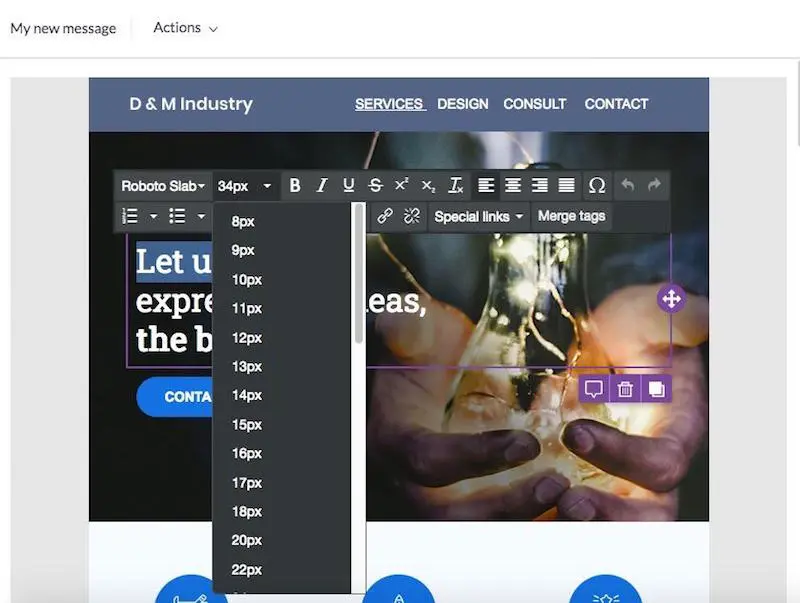
Best Font Size For Mailing Labels . Choosing the right font for labels? Our designers put together three sample font pdfs to help you see what a popular label font looks. Learn how to choose the best font for your product labels. It’s best to avoid using any cursive, serif, or italic fonts for name tags. Choose the right font for your branded labels. It’s all about legibility and matching your brand’s vibe. What size font should you use for your labels? The best fonts for name tags are ones that are easy to read from a distance, including gotham, arial, myriad pro, helvetica, or futura. Letters and boxes often go through automatic mail sorters. To ensure your shipments move through the process swiftly and arrive at their intended destination, stay. Trust me, the perfect address label font can enhance. You want something that’s easy to read. It's not just about addressing envelopes; This guide walks you through the great collection of fonts that can be found in avery design & print. When it comes to making your mailings stand out, the right font plays a crucial role.
The best fonts for name tags are ones that are easy to read from a distance, including gotham, arial, myriad pro, helvetica, or futura. To ensure your shipments move through the process swiftly and arrive at their intended destination, stay. It’s all about legibility and matching your brand’s vibe. When it comes to making your mailings stand out, the right font plays a crucial role. It’s best to avoid using any cursive, serif, or italic fonts for name tags. This guide walks you through the great collection of fonts that can be found in avery design & print. Discover what makes a font readable and find the perfect match for your brand. To help you in your. Choosing the right font for labels? Word offers a wide range of free fonts that you can use, making it difficult to choose the right one.
Best Font Size For Mailing Labels It's not just about addressing envelopes; Word offers a wide range of free fonts that you can use, making it difficult to choose the right one. When it comes to making your mailings stand out, the right font plays a crucial role. Choose the right font for your branded labels. This guide walks you through the great collection of fonts that can be found in avery design & print. Choosing the right font for labels? It’s best to avoid using any cursive, serif, or italic fonts for name tags. Letters and boxes often go through automatic mail sorters. Trust me, the perfect address label font can enhance. What size font should you use for your labels? Learn how to choose the best font for your product labels. It's not just about addressing envelopes; You want something that’s easy to read. To ensure your shipments move through the process swiftly and arrive at their intended destination, stay. It’s all about legibility and matching your brand’s vibe. To help you in your.
How to Pick the Right Font for Your Labels Avery Best Font Size For Mailing Labels It’s all about legibility and matching your brand’s vibe. It's not just about addressing envelopes; Our designers put together three sample font pdfs to help you see what a popular label font looks. It’s best to avoid using any cursive, serif, or italic fonts for name tags. You want something that’s easy to read. Discover what makes a font readable. Best Font Size For Mailing Labels.
What’s the best font size to use in my email marketing? Best Font Size For Mailing Labels Choose the right font for your branded labels. The best fonts for name tags are ones that are easy to read from a distance, including gotham, arial, myriad pro, helvetica, or futura. It's not just about addressing envelopes; Our designers put together three sample font pdfs to help you see what a popular label font looks. Choosing the right font. Best Font Size For Mailing Labels.
How to print labels the EASY way! Video Tip Best Font Size For Mailing Labels Choosing the right font for labels? You want something that’s easy to read. What size font should you use for your labels? To help you in your. This guide walks you through the great collection of fonts that can be found in avery design & print. Discover what makes a font readable and find the perfect match for your brand.. Best Font Size For Mailing Labels.
Best Fonts for Labels Ellen Blogs Best Font Size For Mailing Labels Word offers a wide range of free fonts that you can use, making it difficult to choose the right one. Our designers put together three sample font pdfs to help you see what a popular label font looks. When it comes to making your mailings stand out, the right font plays a crucial role. Letters and boxes often go through. Best Font Size For Mailing Labels.
Best Font Size For A0 Poster Printable Templates Best Font Size For Mailing Labels Letters and boxes often go through automatic mail sorters. To ensure your shipments move through the process swiftly and arrive at their intended destination, stay. Word offers a wide range of free fonts that you can use, making it difficult to choose the right one. Choosing the right font for labels? This guide walks you through the great collection of. Best Font Size For Mailing Labels.
Best font size for websites How to pick the right one for great UX Best Font Size For Mailing Labels The best fonts for name tags are ones that are easy to read from a distance, including gotham, arial, myriad pro, helvetica, or futura. Word offers a wide range of free fonts that you can use, making it difficult to choose the right one. When it comes to making your mailings stand out, the right font plays a crucial role.. Best Font Size For Mailing Labels.
Printable Font Size Chart Best Font Size For Mailing Labels You want something that’s easy to read. Choose the right font for your branded labels. Learn how to choose the best font for your product labels. Choosing the right font for labels? It’s all about legibility and matching your brand’s vibe. Our designers put together three sample font pdfs to help you see what a popular label font looks. When. Best Font Size For Mailing Labels.
36 Font Styles to Consider When Branding Your Business or Blog Best Font Size For Mailing Labels Choosing the right font for labels? Choose the right font for your branded labels. What size font should you use for your labels? When it comes to making your mailings stand out, the right font plays a crucial role. Trust me, the perfect address label font can enhance. Word offers a wide range of free fonts that you can use,. Best Font Size For Mailing Labels.
What's the best font size for email marketing? Featured Best Font Size For Mailing Labels Trust me, the perfect address label font can enhance. It’s all about legibility and matching your brand’s vibe. It’s best to avoid using any cursive, serif, or italic fonts for name tags. Learn how to choose the best font for your product labels. It's not just about addressing envelopes; Word offers a wide range of free fonts that you can. Best Font Size For Mailing Labels.